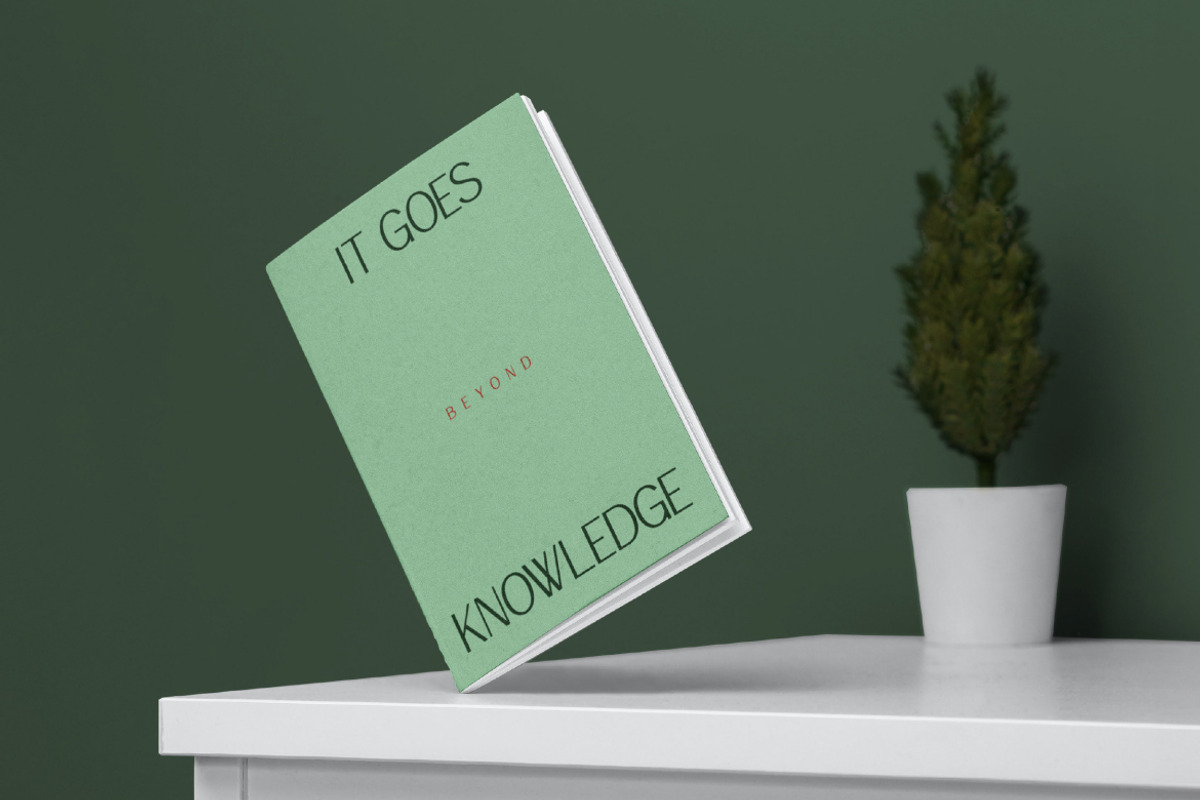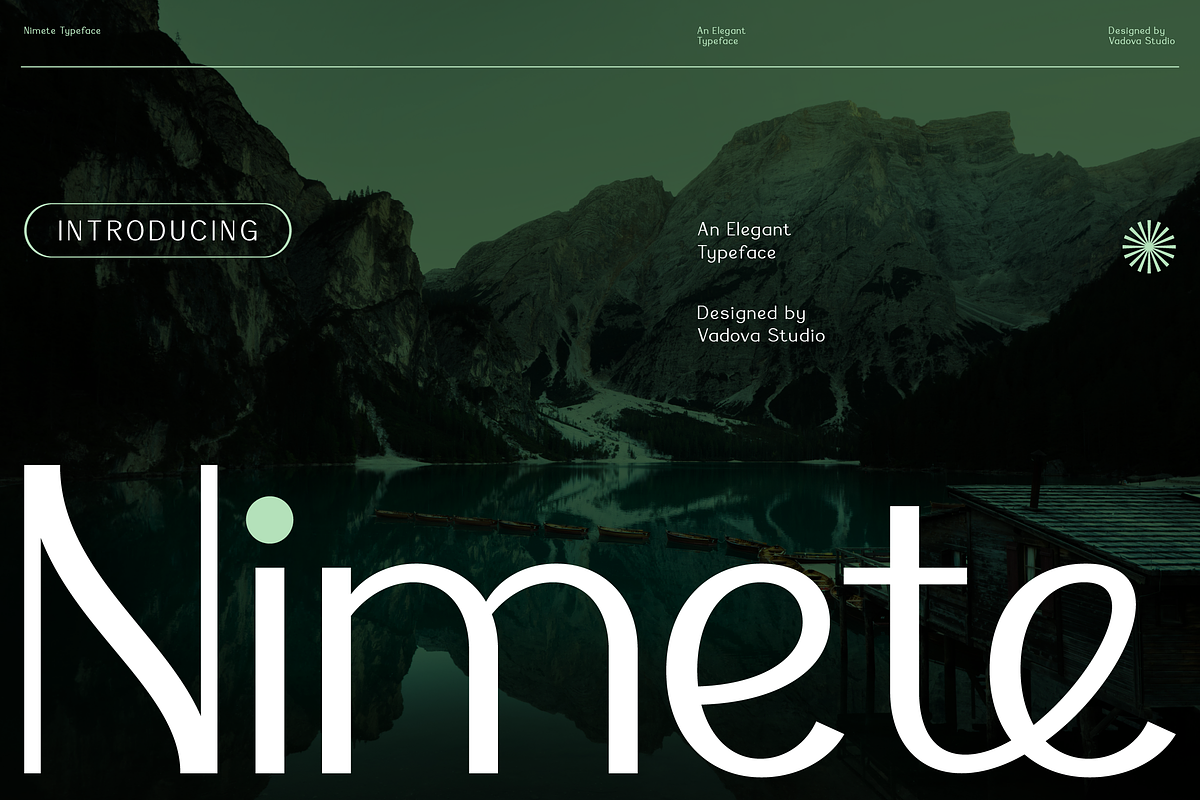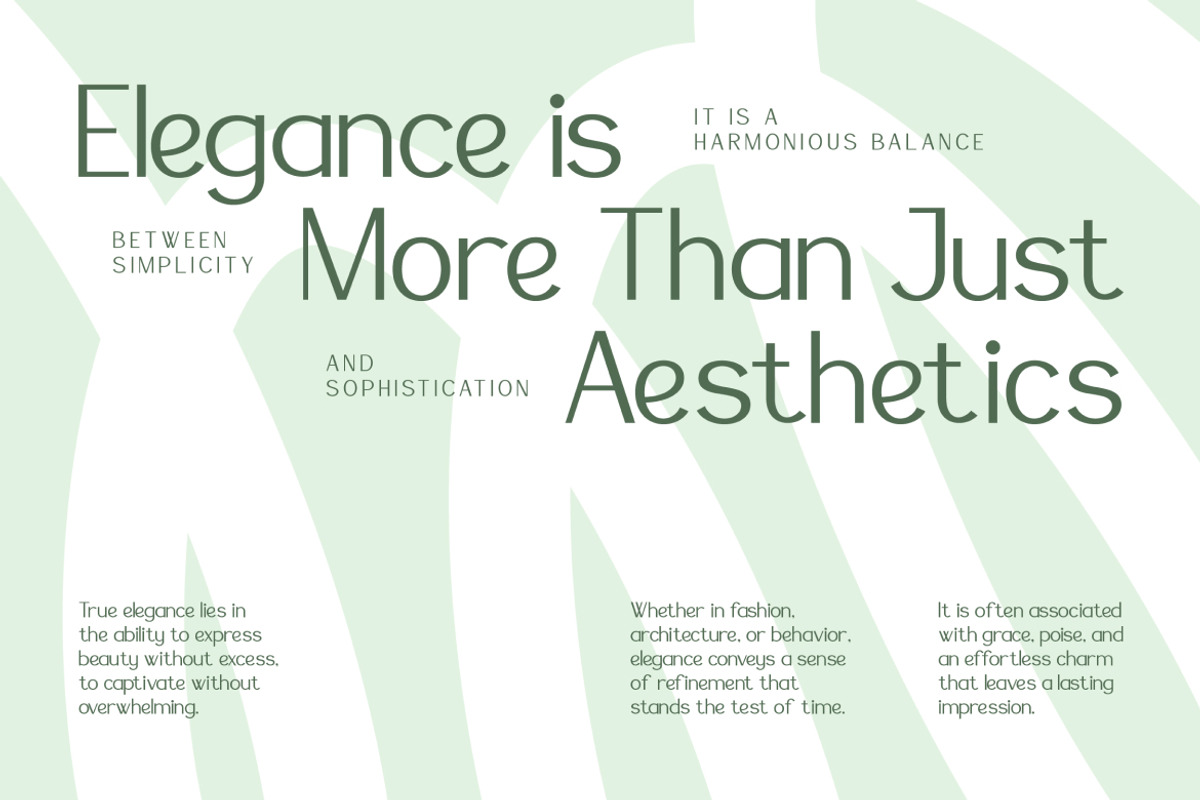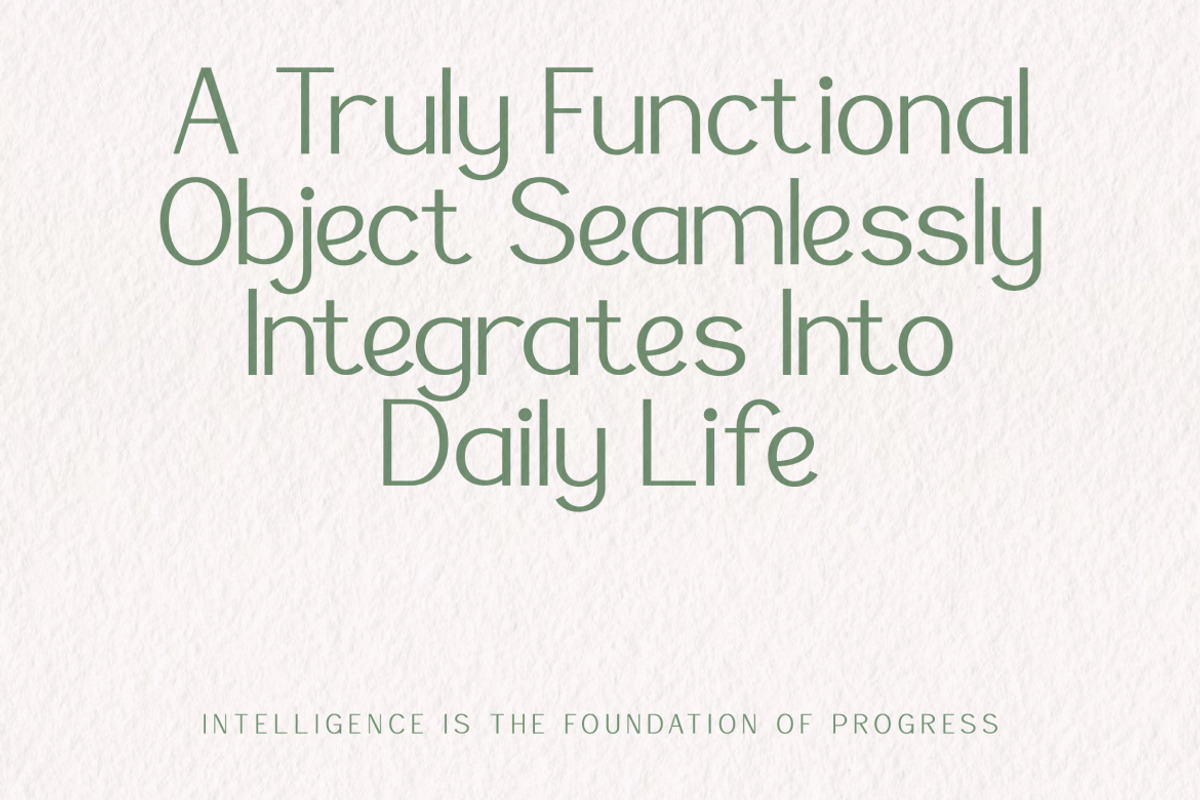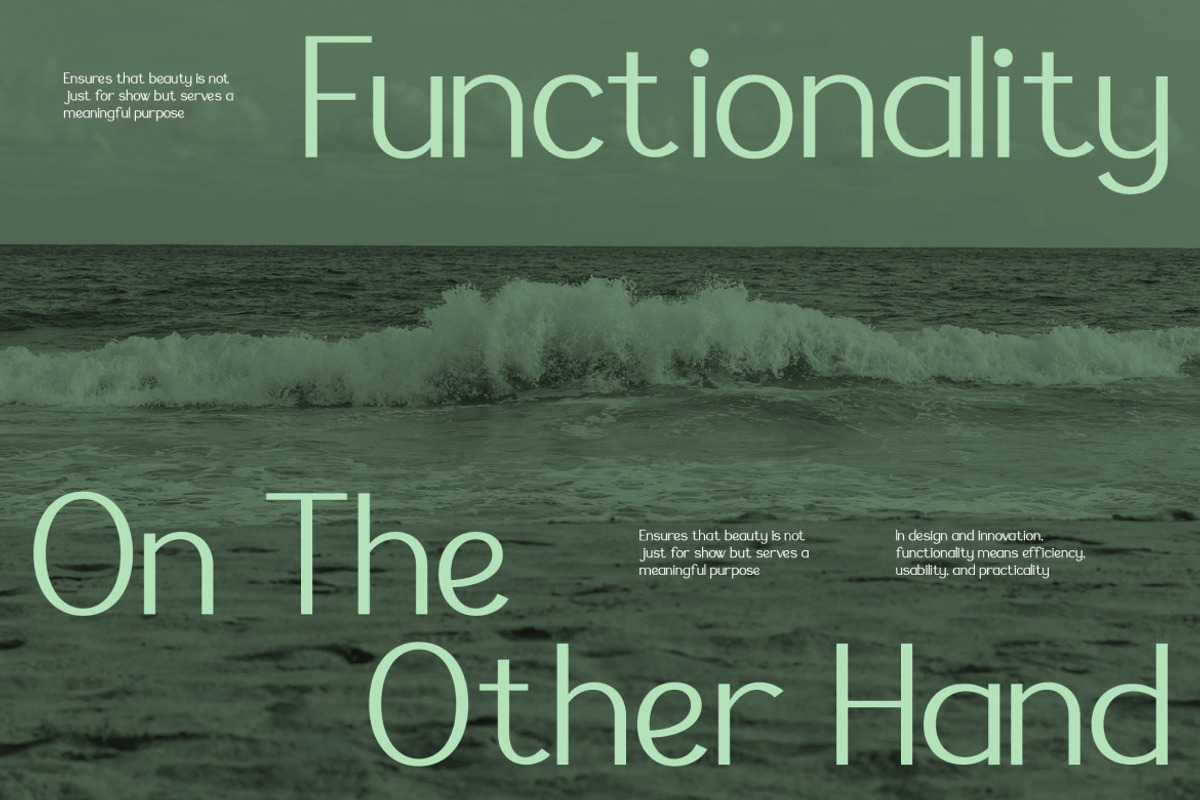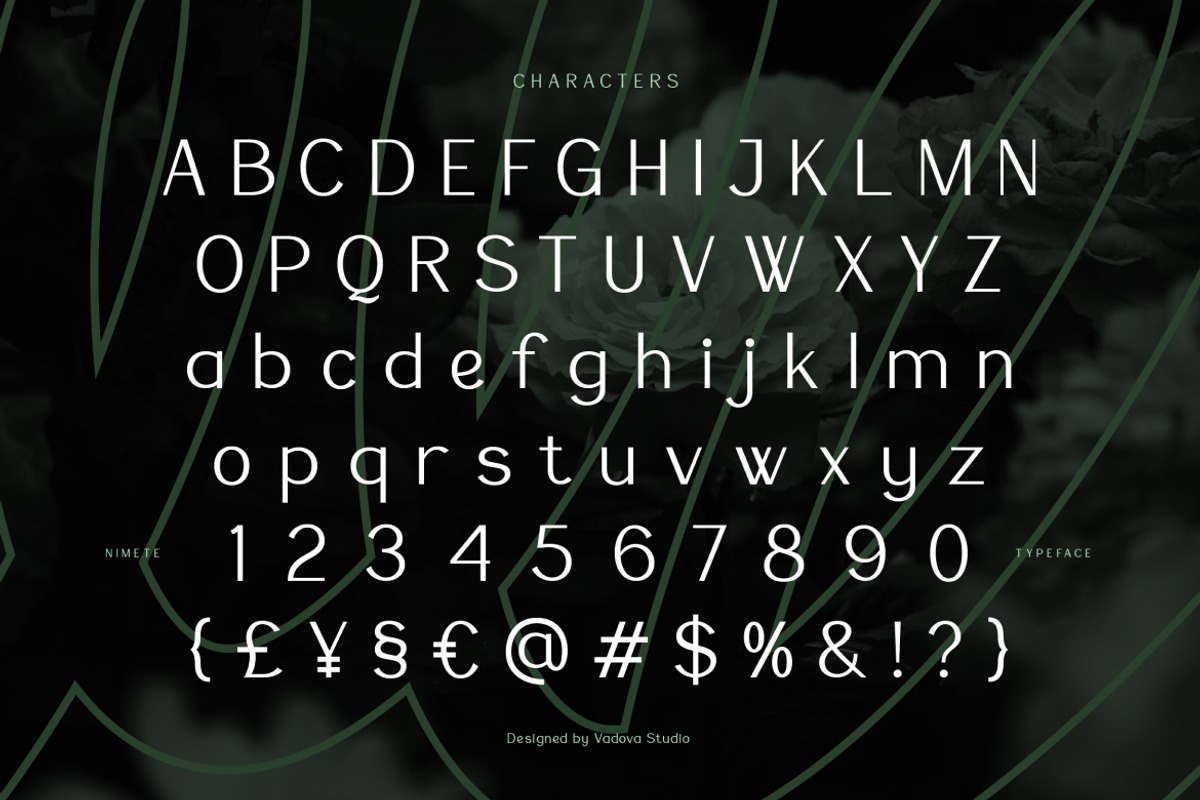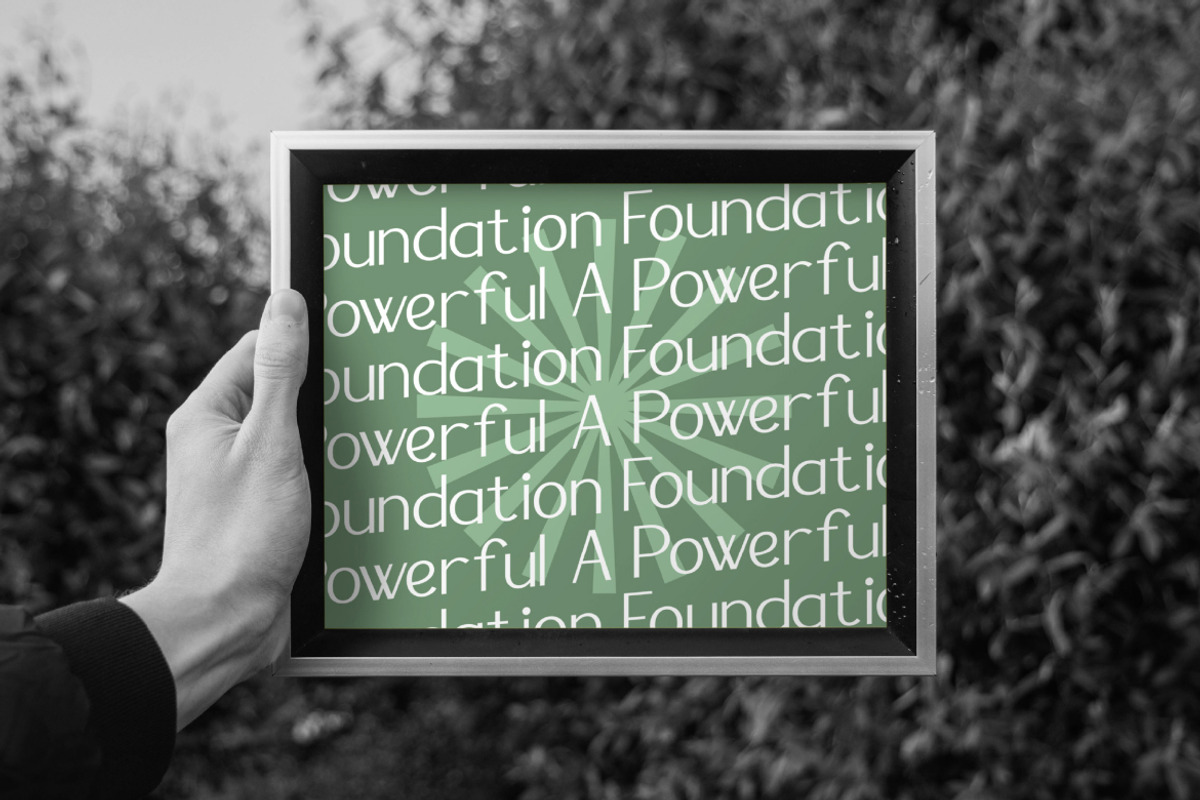
Nimete – Elegant Modern Sans Serif
Nimete embodies modern elegance and minimalist sophistication, created for designers who appreciate purity in form and precision in balance. The font blends geometric structure with fluid curves, resulting in a refined sans serif typeface that feels timeless yet contemporary. Every stroke has been carefully crafted to reflect clarity and restraint — neither too mechanical nor overly decorative, maintaining a graceful, natural rhythm.
The tone of Nimete fits perfectly within the high-end design market, particularly for fashion brands, editorial layouts, architecture studios, digital design agencies, and luxury lifestyle projects. Its elevated legibility and stylish personality make it versatile for both headline statements and body text. Designed for visual harmony, Nimete enhances clean compositions, calm branding, and editorial spaces where design breathes effortlessly.
With its rounded terminals, consistent width, and harmonious proportion, Nimete projects a sense of serenity and precision. It captures the essence of modern sophistication — making it an ideal choice for brand identities, product packaging, digital interfaces, magazine spreads, and contemporary visual storytelling.
Designed for designers who love balance and beauty. Nimete is not just a typeface; it’s a modern interpretation of elegance in motion. It elevates every project with effortless refinement — creating a visual tone that’s calm, clear, and professional. Whether for a minimalist fashion label or a sleek tech rebrand, Nimete turns typography into a statement of sophistication.
Elegant modern sans-serif with geometric precision
Balanced spacing for clean, readable compositions
Rounded yet firm terminals for refined visual texture
Perfect for editorial, branding, and digital display projects
Smooth typographic hierarchy for minimal layouts
Consistent vertical rhythm for clean brand systems
Great for high-contrast editorial design
Relevance and Use Cases
Relevance and Use Cases is perfect for luxury branding, fashion magazines, modern editorials, architecture portfolios, boutique product packaging, tech company identities, UI/UX design, and lifestyle campaigns that demand contemporary refinement.
Bring balance and modern elegance to your projects with Nimete — a minimalist sans typeface crafted to define clarity, calm, and sophistication in every design.